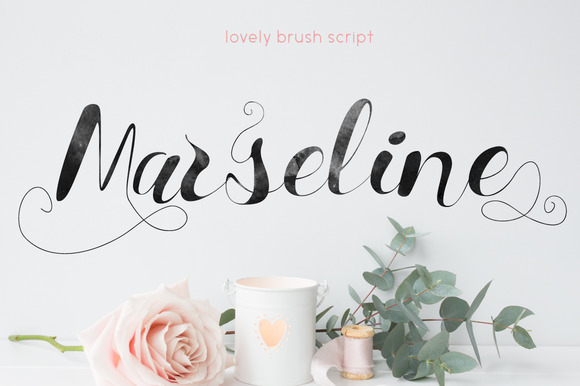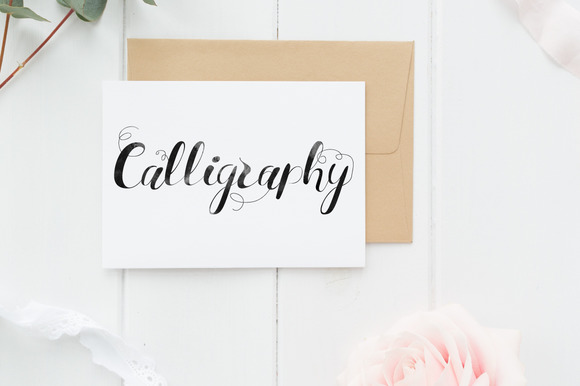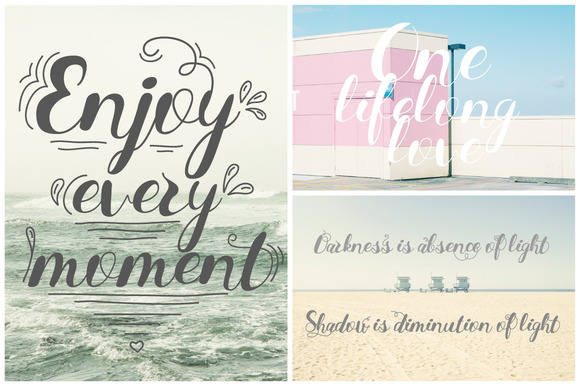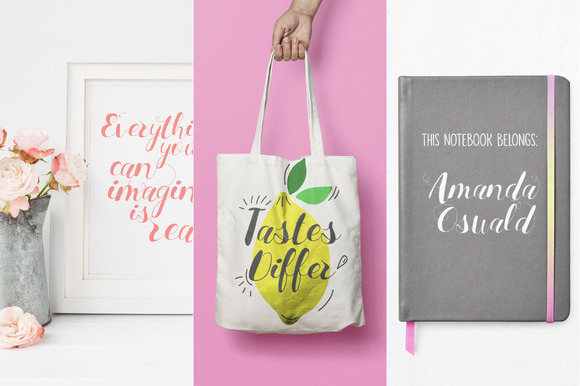
Marseline Font
About Marseline Font
This romantic and modern calligraphy script font can be used for various purposes such as headings, logos, invitations, t-shirt designs, greeting cards, posters, labels, book covers, brochures, and much more.